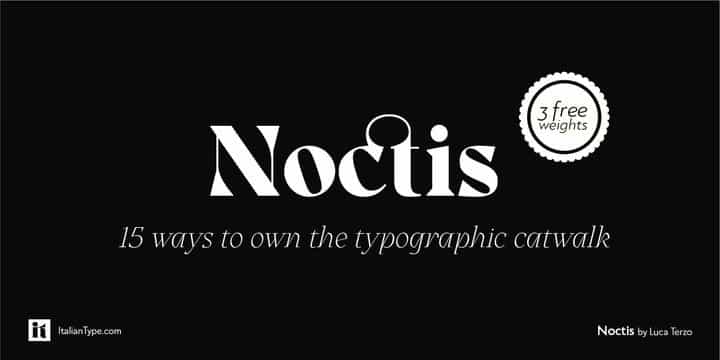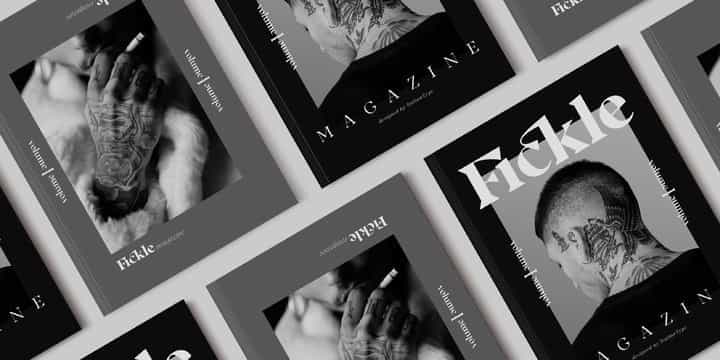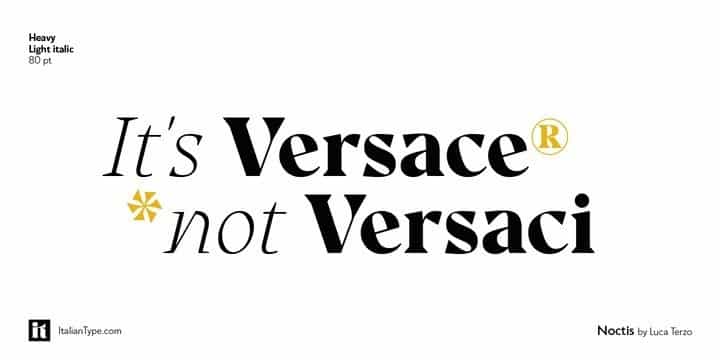
Noctis was originally created as a single weight display font, by Luca Terzo drawing inspiration from the wedge serifs in Aldo Novareses 1972 typeface for H. Berthold A.G., Primate. The Italian Type team expanded the design into a family of five weights each accompanied by its true italic version along with a set of decorative patterns.